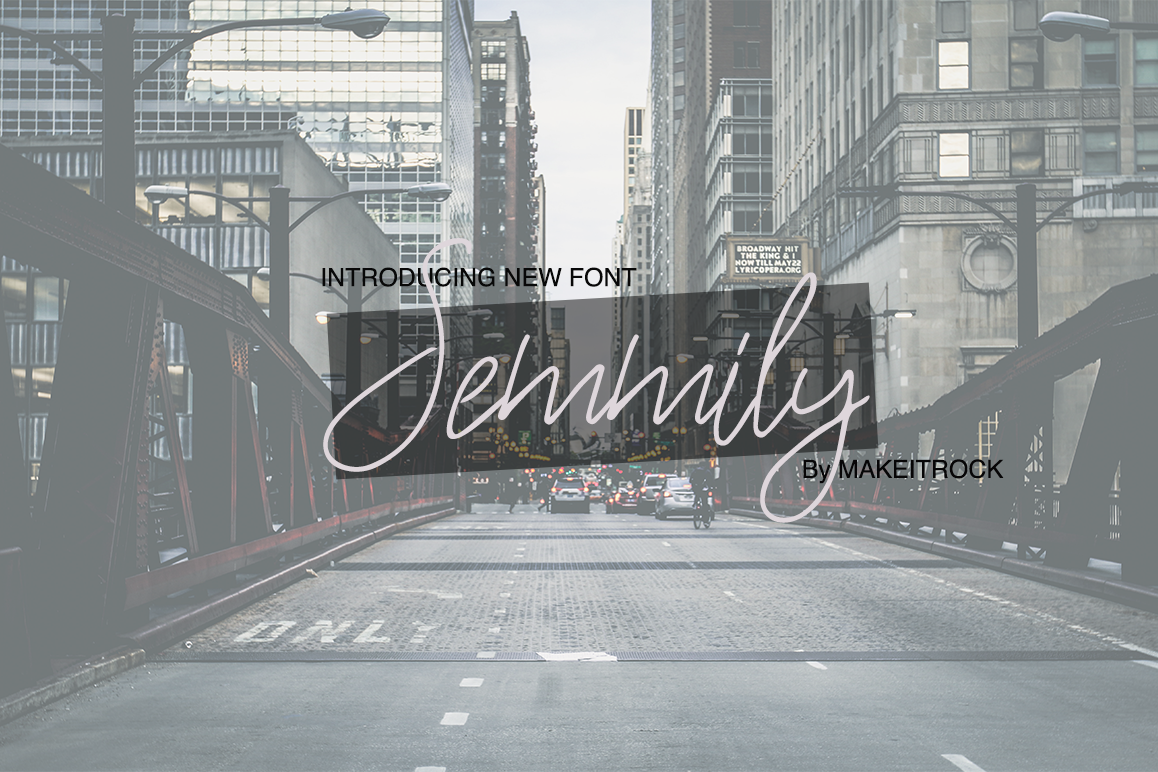
Semmily
Meet new Handwritten font Semmily.
Semmily - a new handwritten font. Very suitable for greeting cards, branding materials, business cards, quotes, posters,based creations, websites, merchandise, packaging, invites, greetings and more!